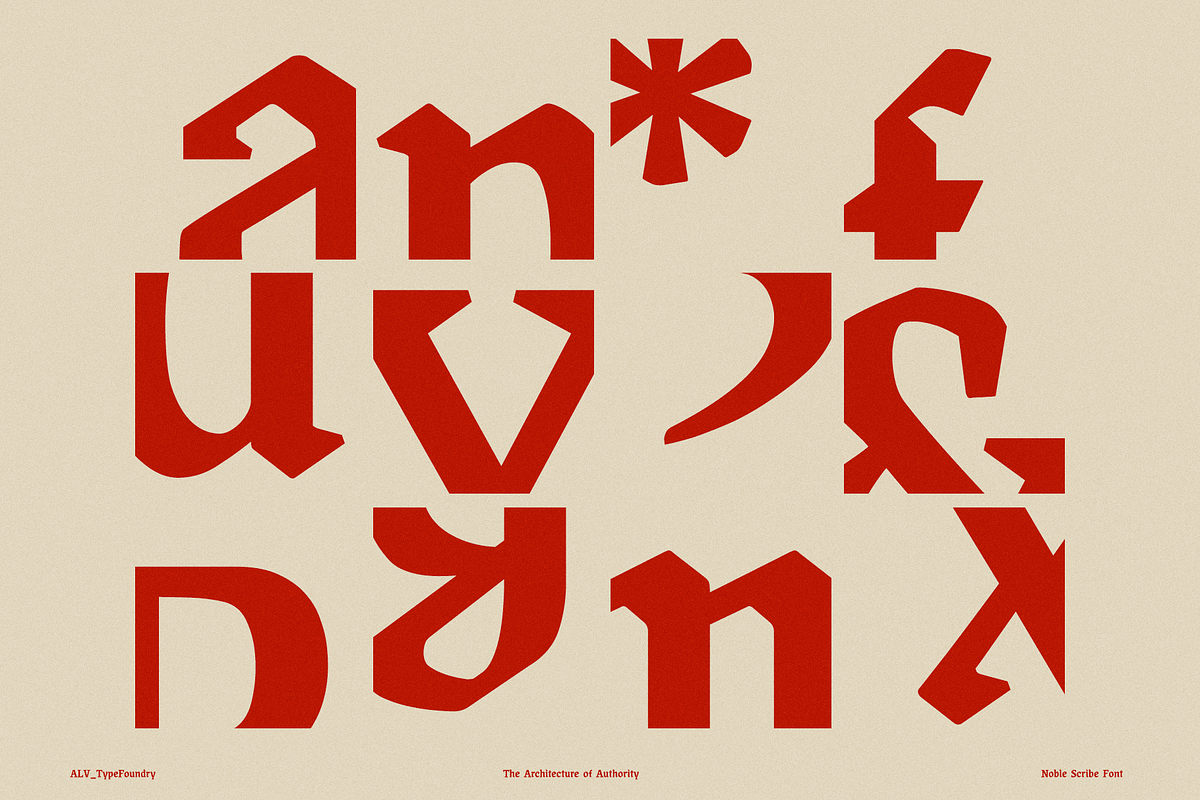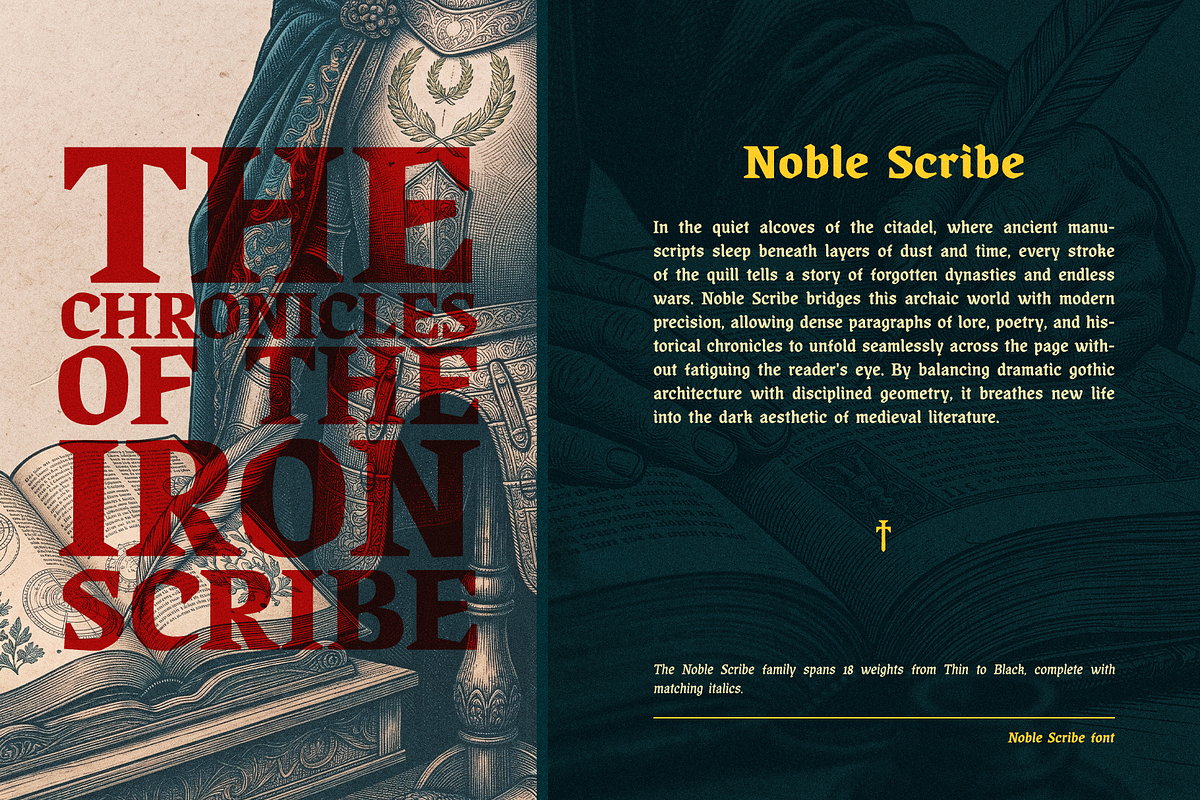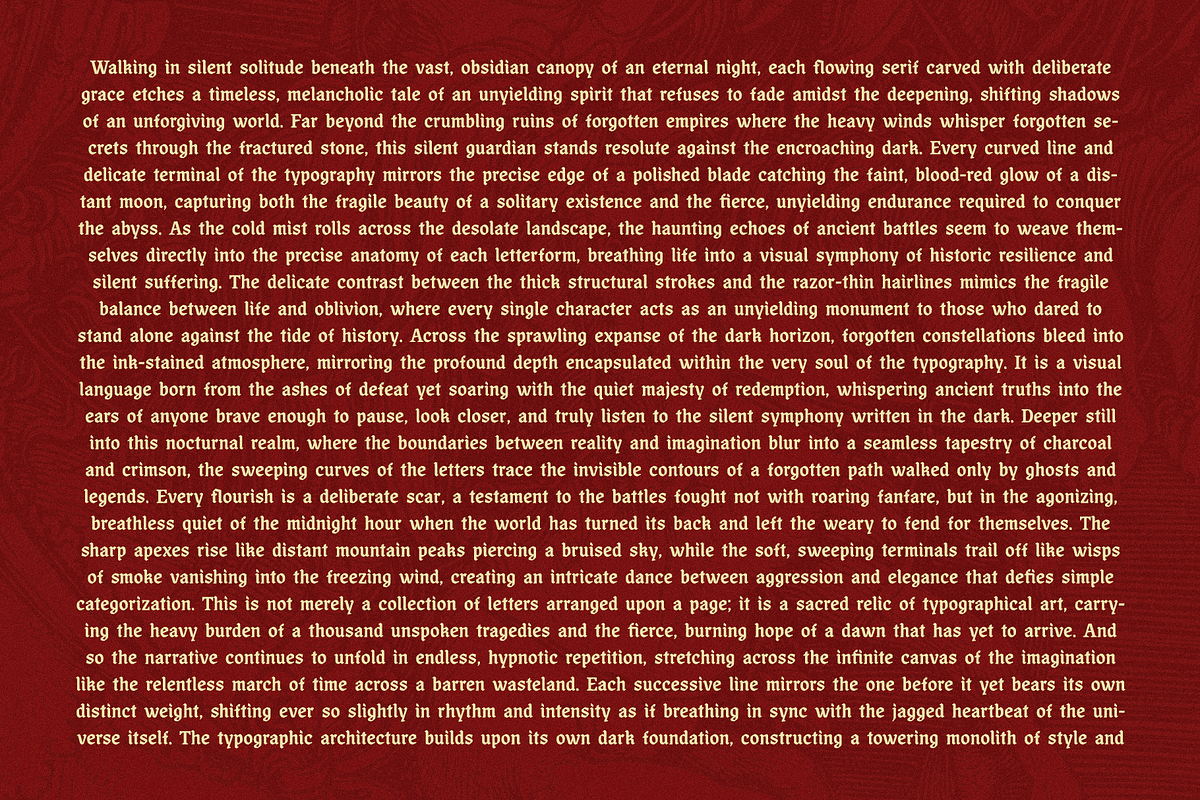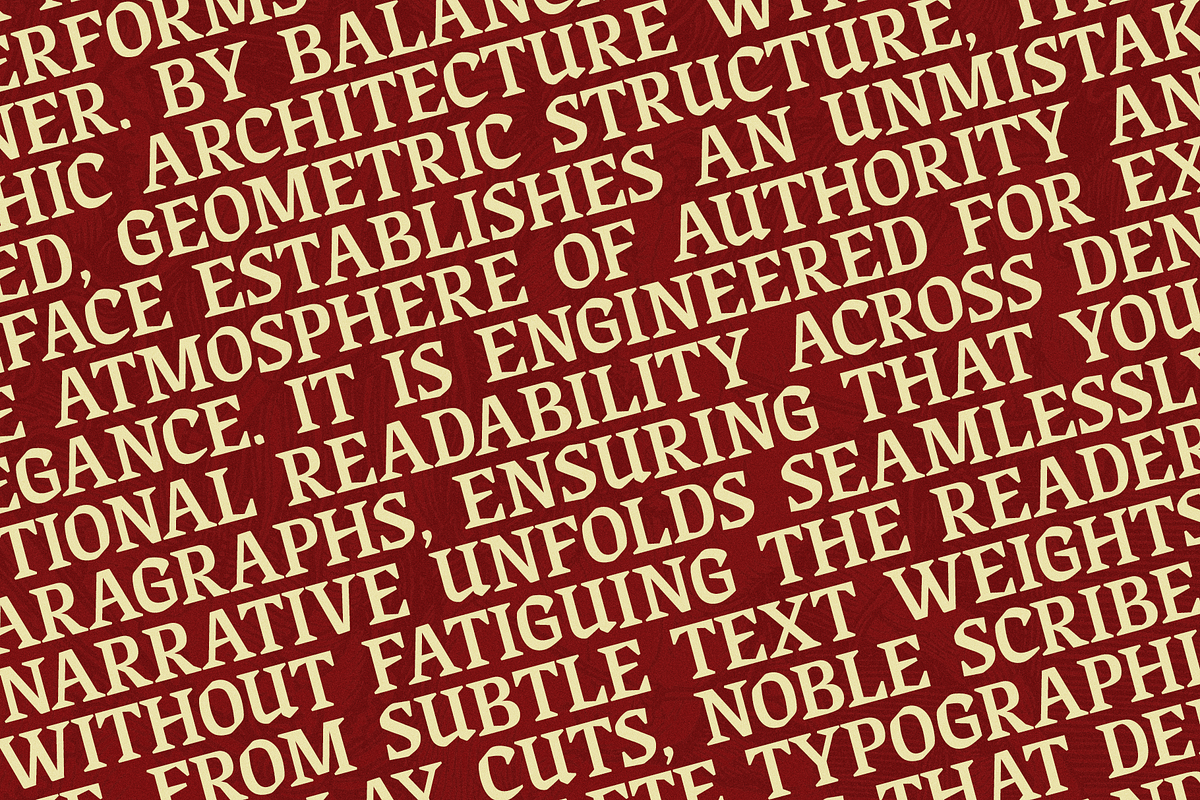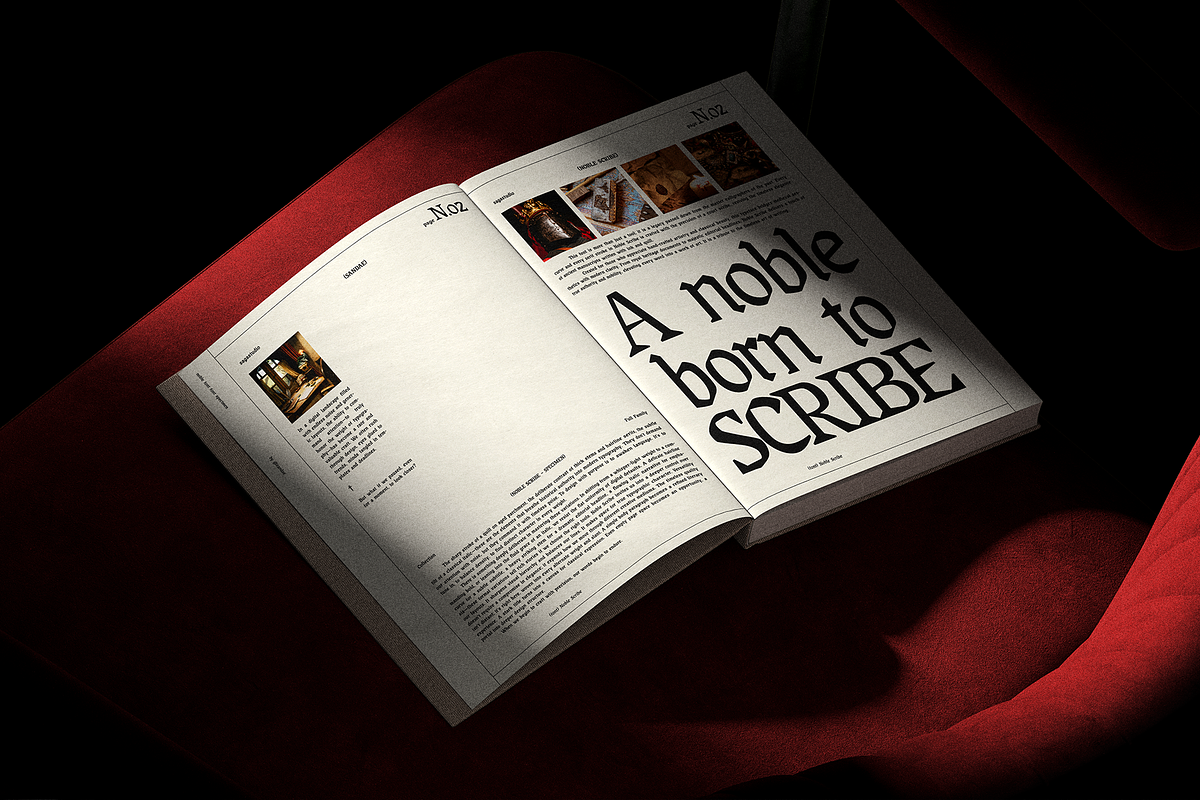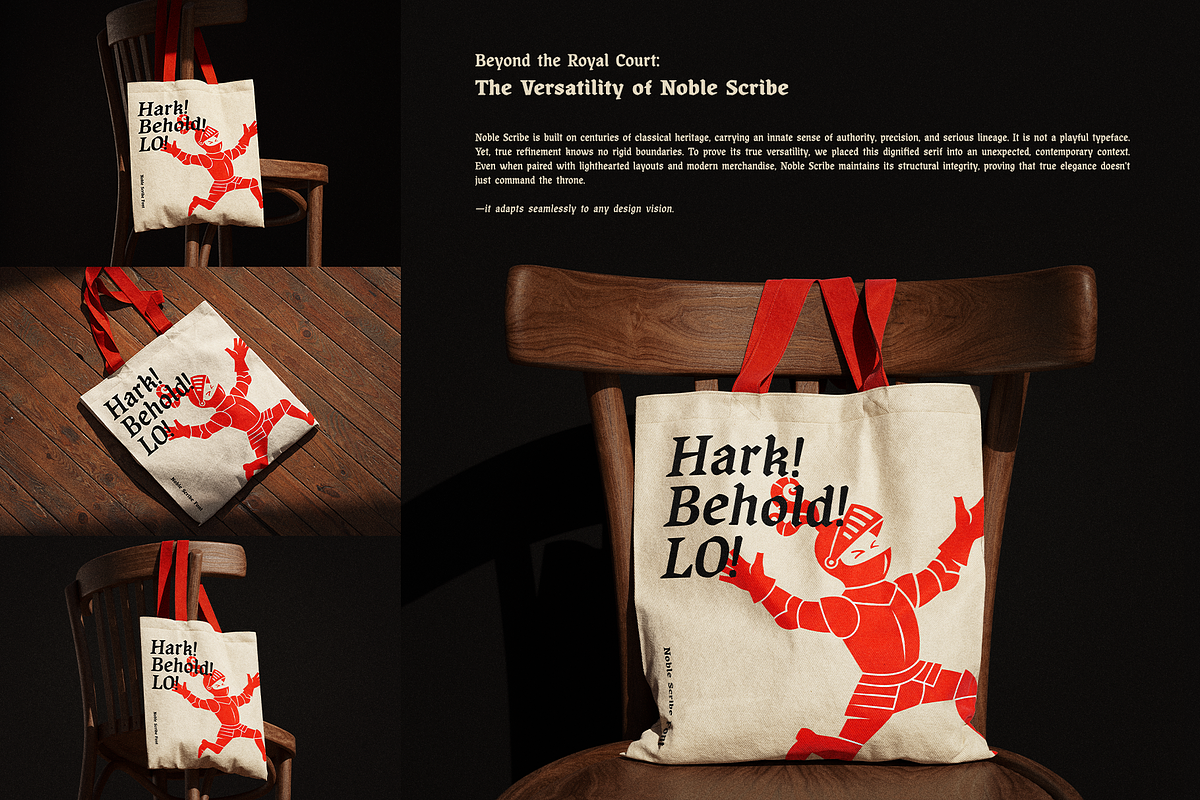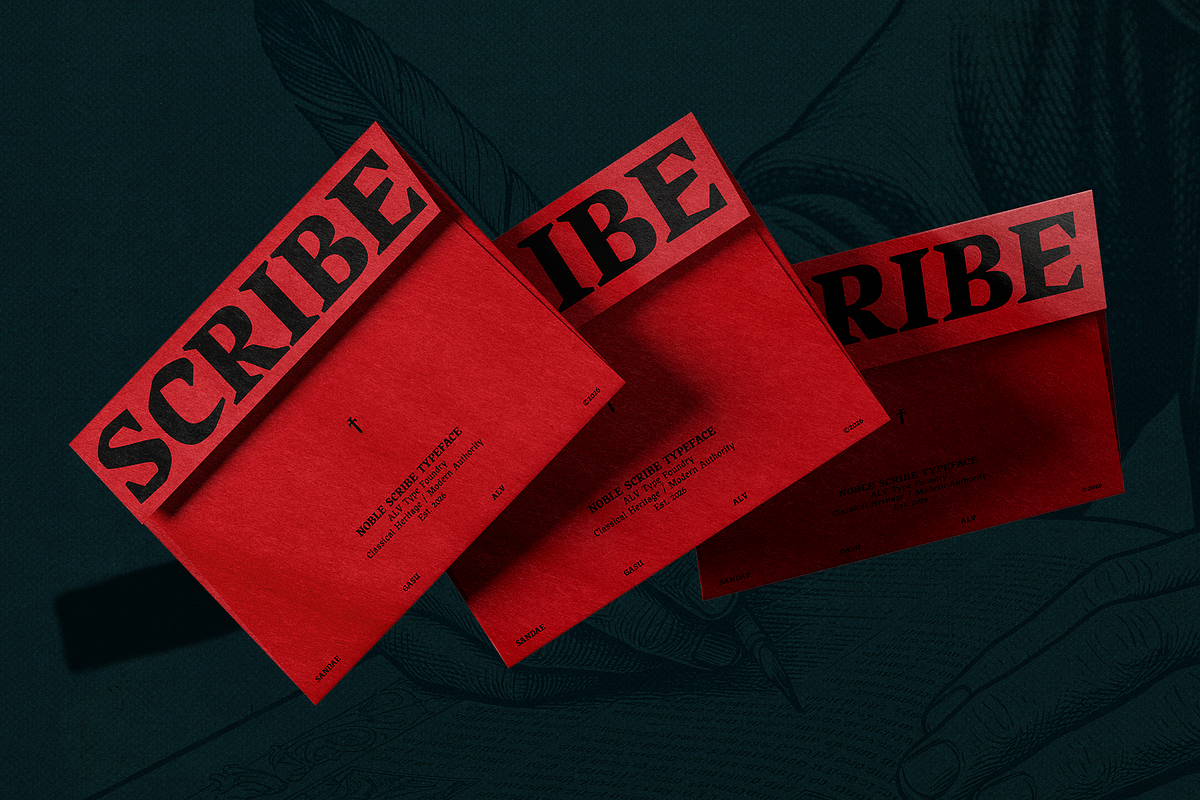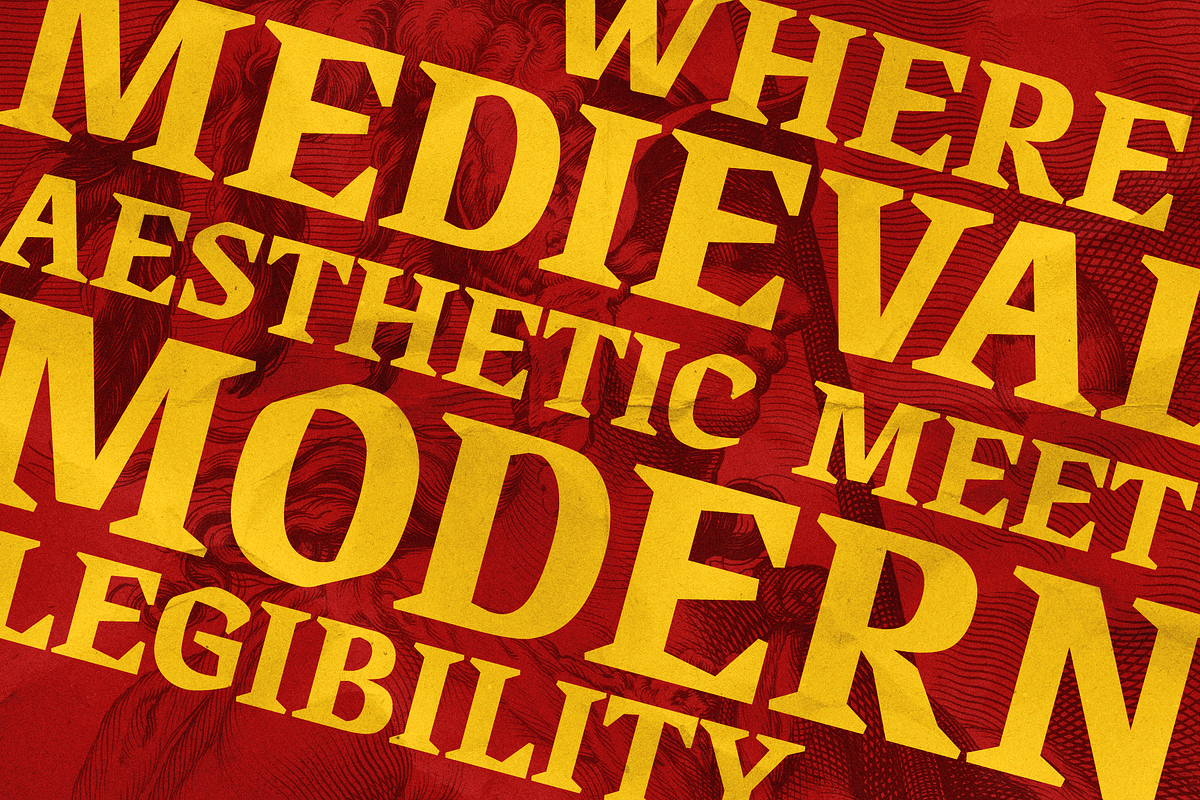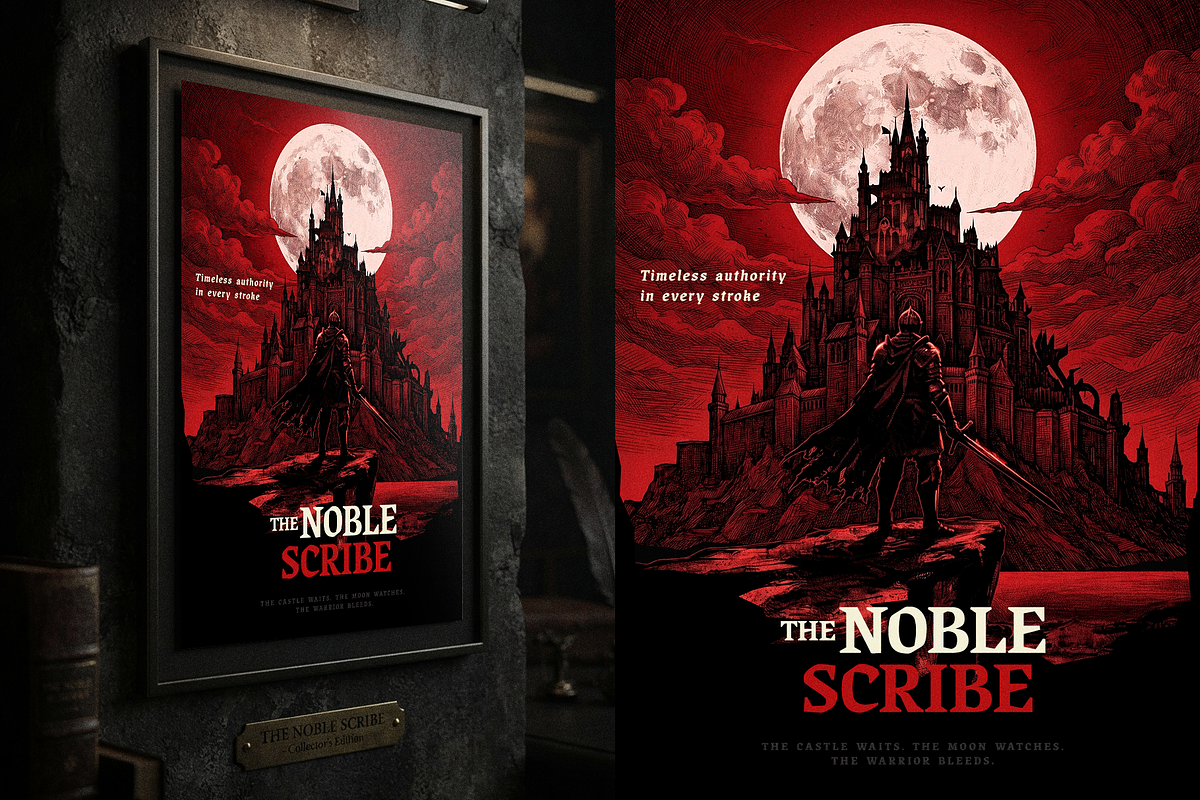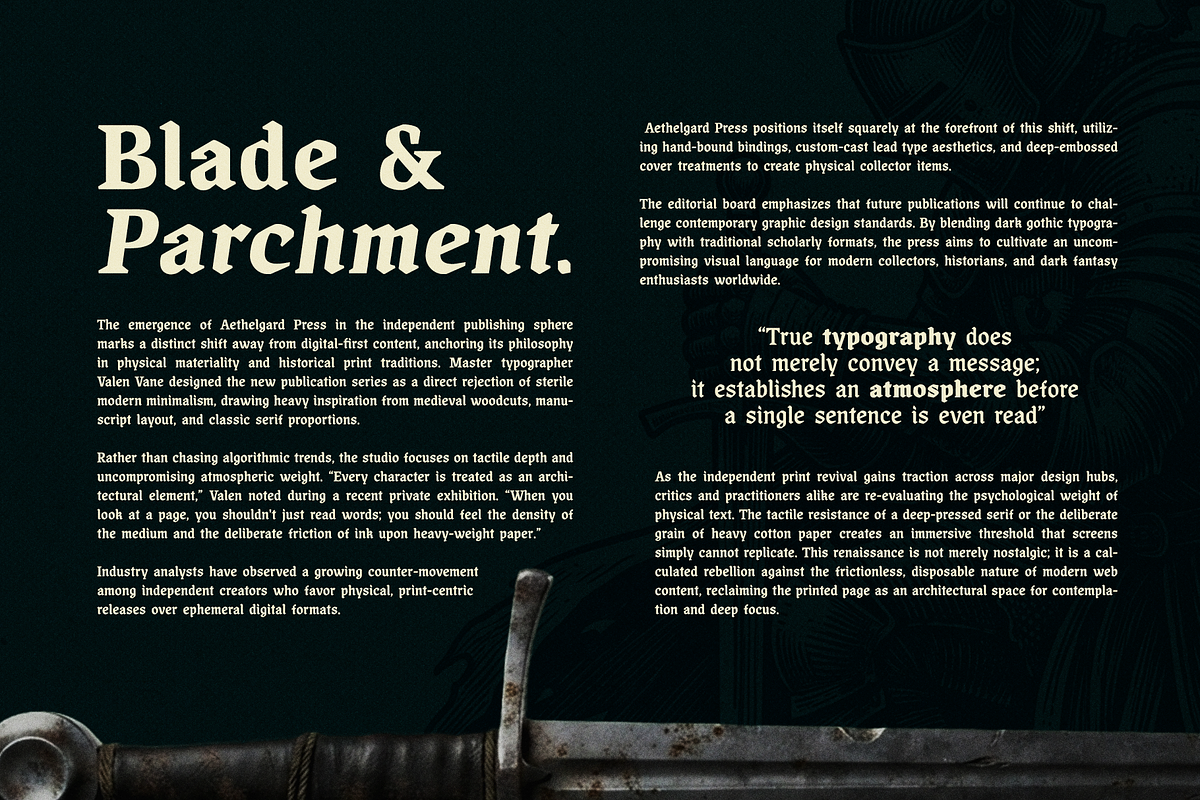
Noble Scribe – Editorial BlackLetter
Noble Scribe is a premium serif typeface inspired by medieval manuscripts, classical blackletter traditions, and timeless editorial typography. Designed with refined geometry and balanced proportions, it delivers the authority and character of historical lettering while maintaining exceptional readability for modern design.
Unlike traditional blackletter fonts that are primarily decorative, Noble Scribe has been carefully engineered to perform beautifully in both display typography and extended body text. Every character is crafted to balance historical authenticity with contemporary usability, making it suitable for projects that demand sophistication, heritage, and lasting visual impact.
The family includes 18 carefully crafted styles, ranging from Thin to Black, complete with matching italics, providing outstanding flexibility for everything from elegant headlines to rich editorial layouts.
Luxury Branding
Publishing & Editorial Design
Historical & Medieval Projects
Premium Packaging
Whiskey, Wine & Craft Beverage Labels
Boutique Hotels
Museums & Cultural Institutions
Fantasy & RPG Branding
Posters
Logos
Invitations
Certificates
Apparel
18 Font Styles
Thin to Black Weights
Matching Italics
Carefully Balanced Letterforms
Optimized Readability
Professional Kerning
Noble Scribe is more than a medieval-inspired typeface—it's a contemporary interpretation of historical typography, created for designers who seek elegance, authority, and versatility without sacrificing readability.